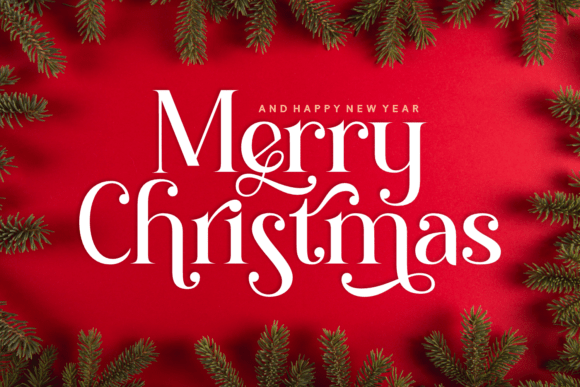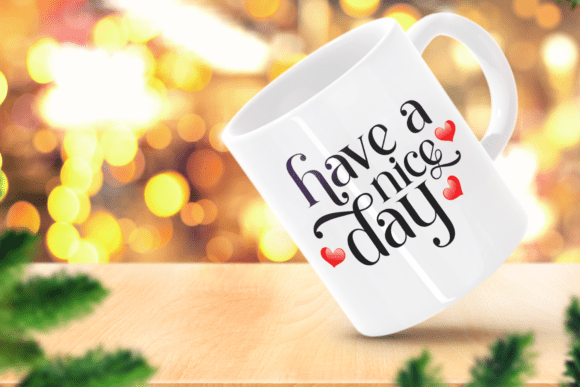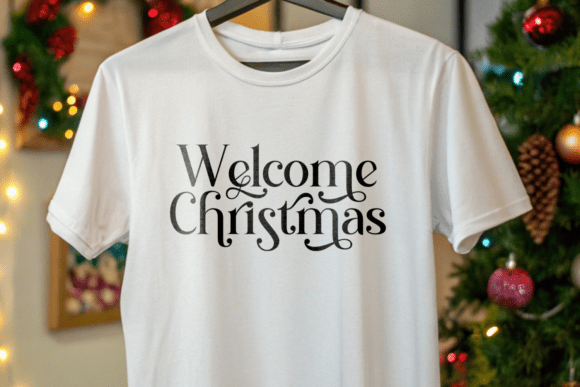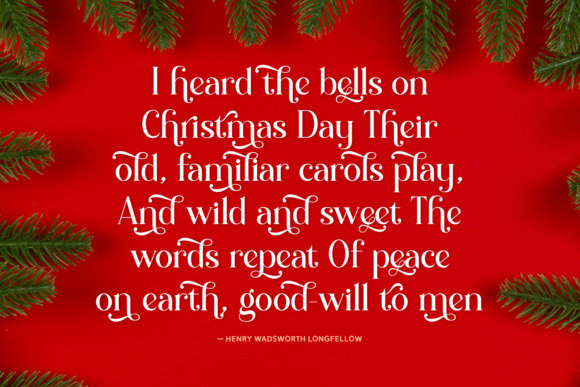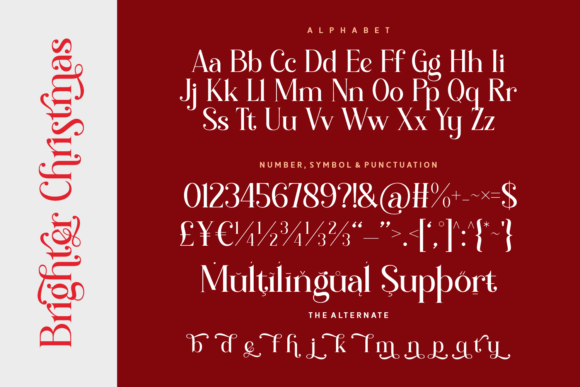
Introducing Brighter Christmas: The Ultimate Font for Holiday Cheer
Are you searching for a font that embodies the spirit of Christmas? Look no further than Brighter Christmas, a delightful fusion of classic serif charm and festive holiday cheer. This font beautifully captures the joyful essence of the season, blending sophistication with playful, handcrafted warmth.
A Font that Feels Quirky, Cute, and Full of Personality
If you’re on the hunt for fonts that feel quirky, cute, and full of personality, Brighter Christmas is the perfect fit. This merry collection is designed to add a touch of magic to every project, from cozy winter quotes to holiday apparel, greeting cards, and festive branding. With its smooth, rounded letterforms and elegant swashes, Brighter Christmas is ideal for a wide range of applications, including book covers, logos, magazines, packaging, and creative prints.
A Complete Creative Toolkit
What sets Brighter Christmas apart is its versatility and attention to detail. Each character flows naturally, giving your designs a clean yet expressive look that feels both personal and professional. The font also features multilingual support and beautiful decorative swashes, making it more than just a font – it’s a complete creative toolkit.
Whether you’re a designer or crafter, Brighter Christmas is the perfect addition to your toolkit. The font’s unique blend of classic serif charm and festive holiday cheer makes it perfect for a wide range of projects, from holiday cards and gift tags to festive branding and packaging. With Brighter Christmas, you can add a touch of warmth and personality to every design.
Key Features of Brighter Christmas
- Classic Serif Charm: Brighter Christmas features a classic serif design that exudes sophistication and elegance.
- Festive Holiday Cheer: The font’s playful, handcrafted warmth captures the joyful spirit of Christmas.
- Multilingual Support: Brighter Christmas features multilingual support, making it perfect for designs that require international characters.
- Beautiful Decorative Swashes: The font’s elegant swashes add a touch of magic to every design.
- Smooth, Rounded Letterforms: Brighter Christmas features smooth, rounded letterforms that give designs a clean yet expressive look.
Use Brighter Christmas for:
- Holiday Apparel: Add a touch of festive cheer to your holiday apparel with Brighter Christmas.
- Greeting Cards: Create beautiful, heartfelt holiday cards with Brighter Christmas.
- Festive Branding: Use Brighter Christmas to add a touch of warmth and personality to your festive branding.
- Book Covers: Brighter Christmas is perfect for book covers that require a touch of elegance and sophistication.
- Logos: Use Brighter Christmas to create unique and memorable logos that capture the spirit of the season.